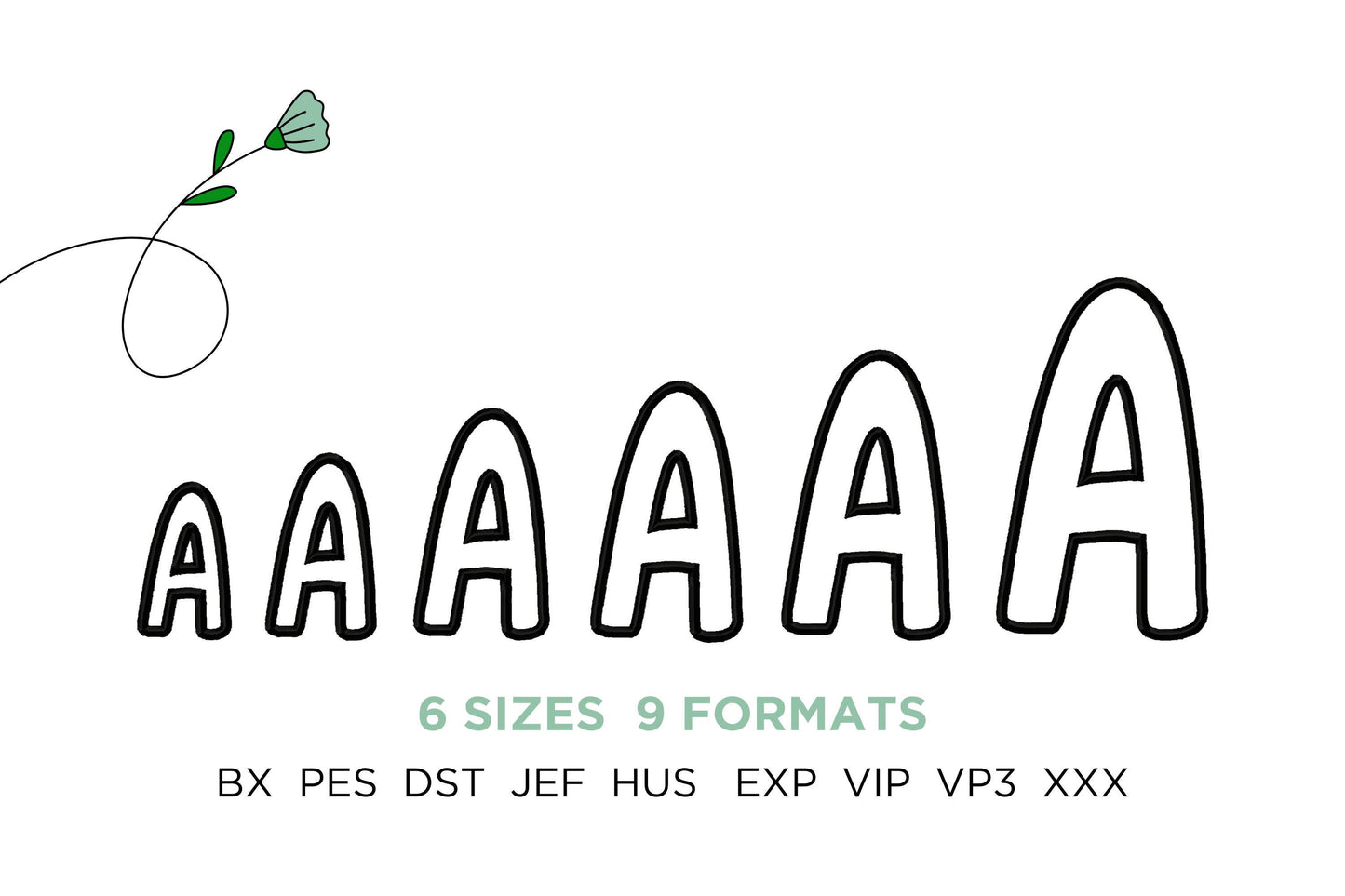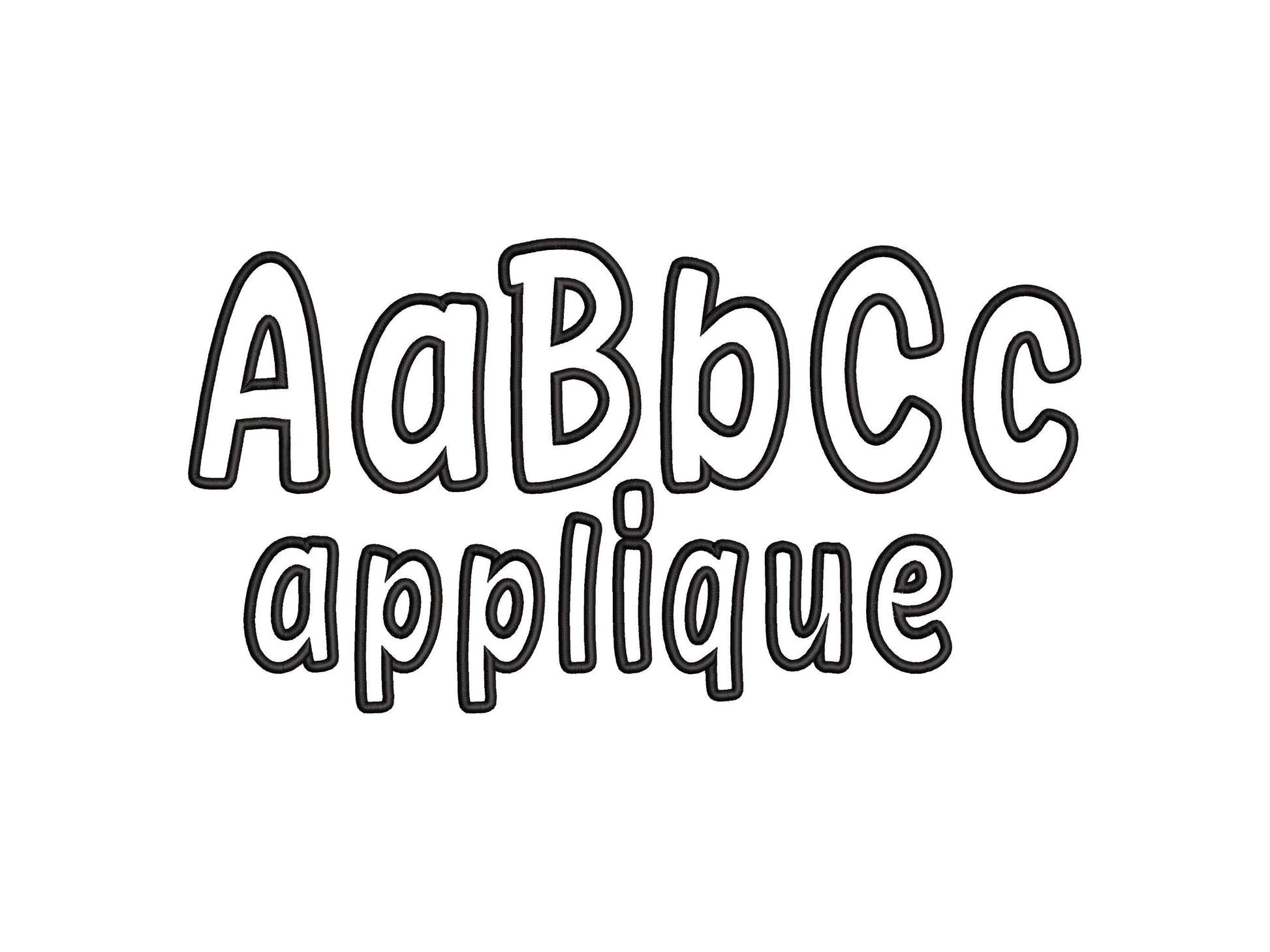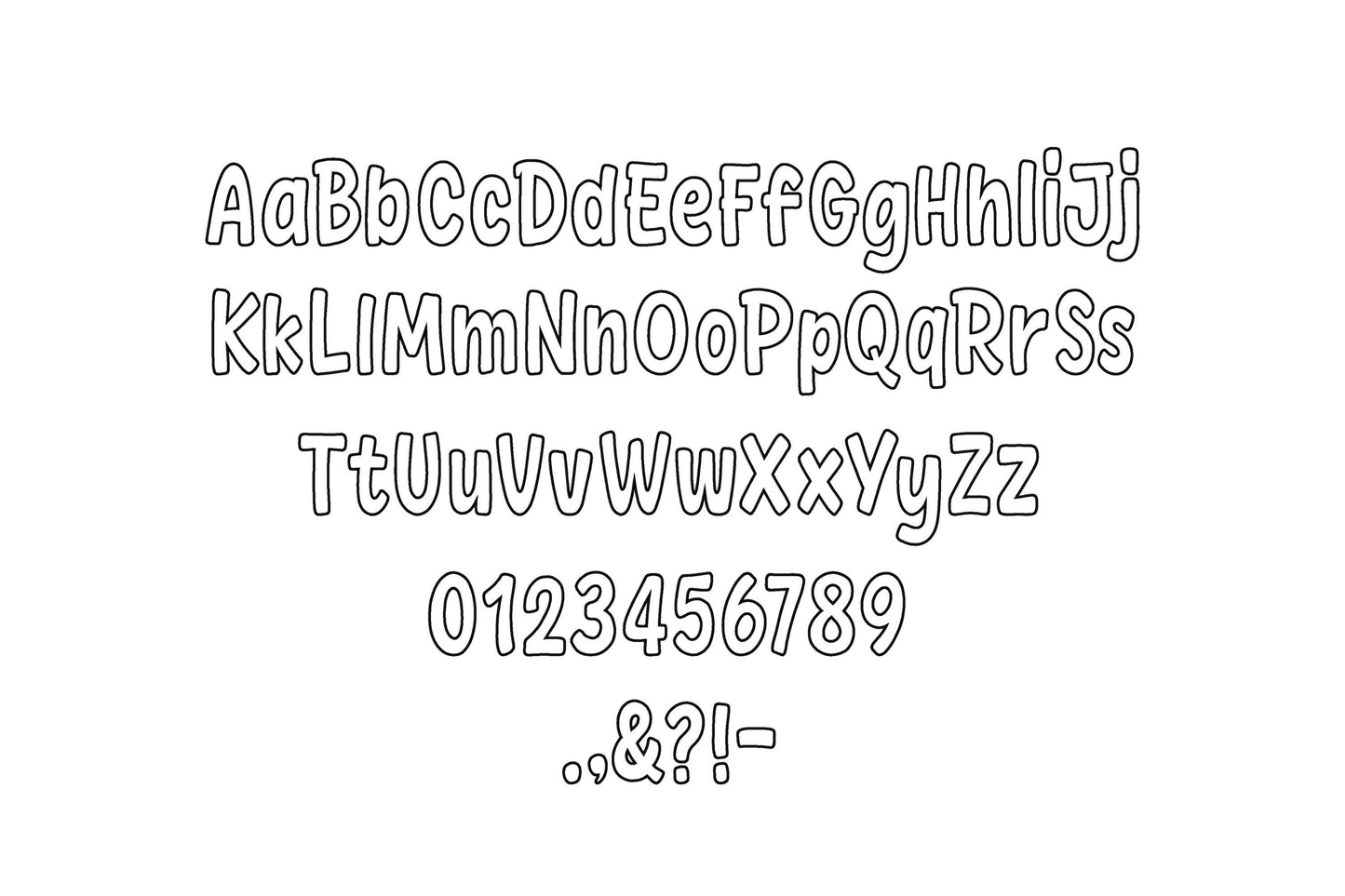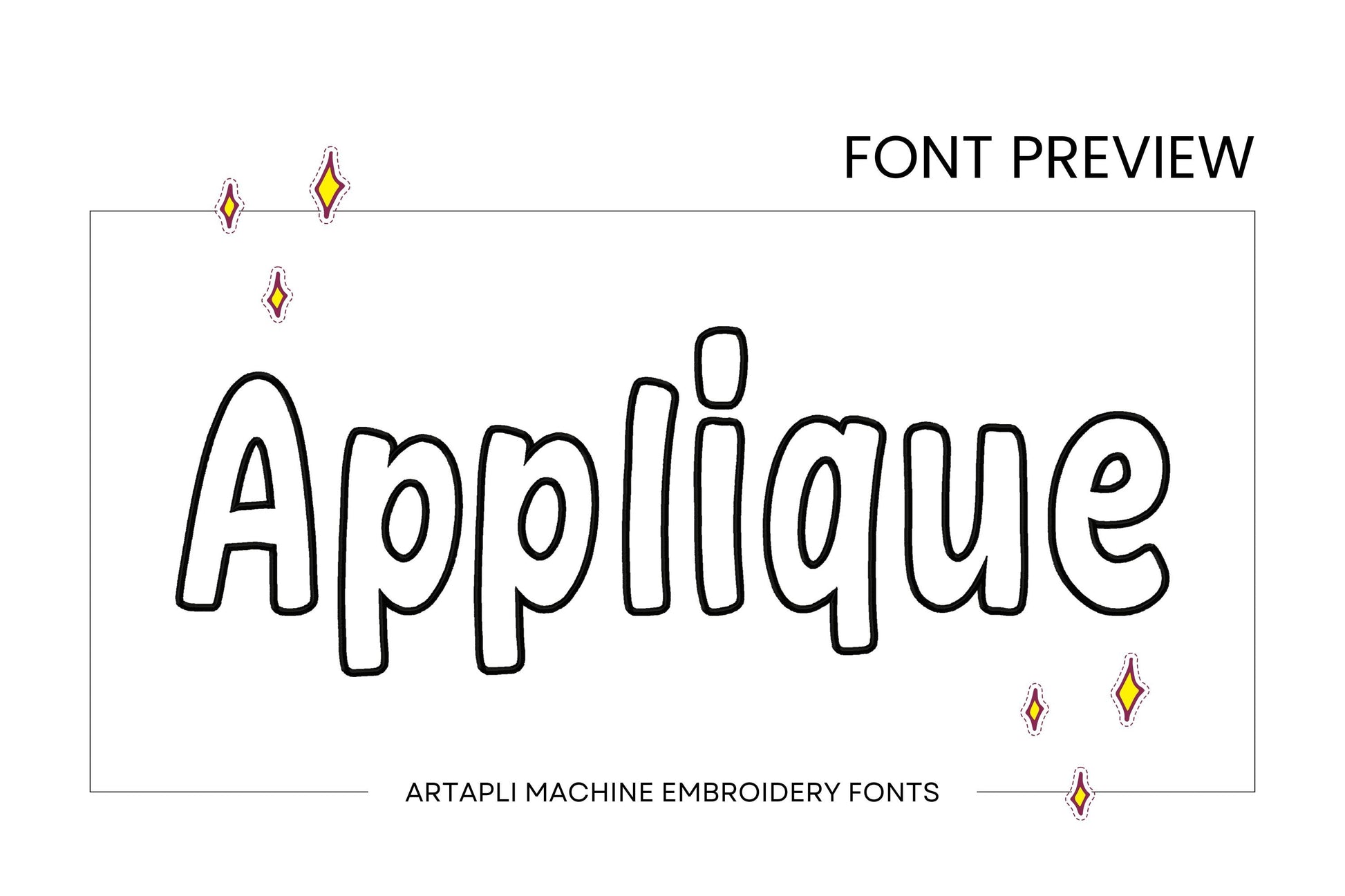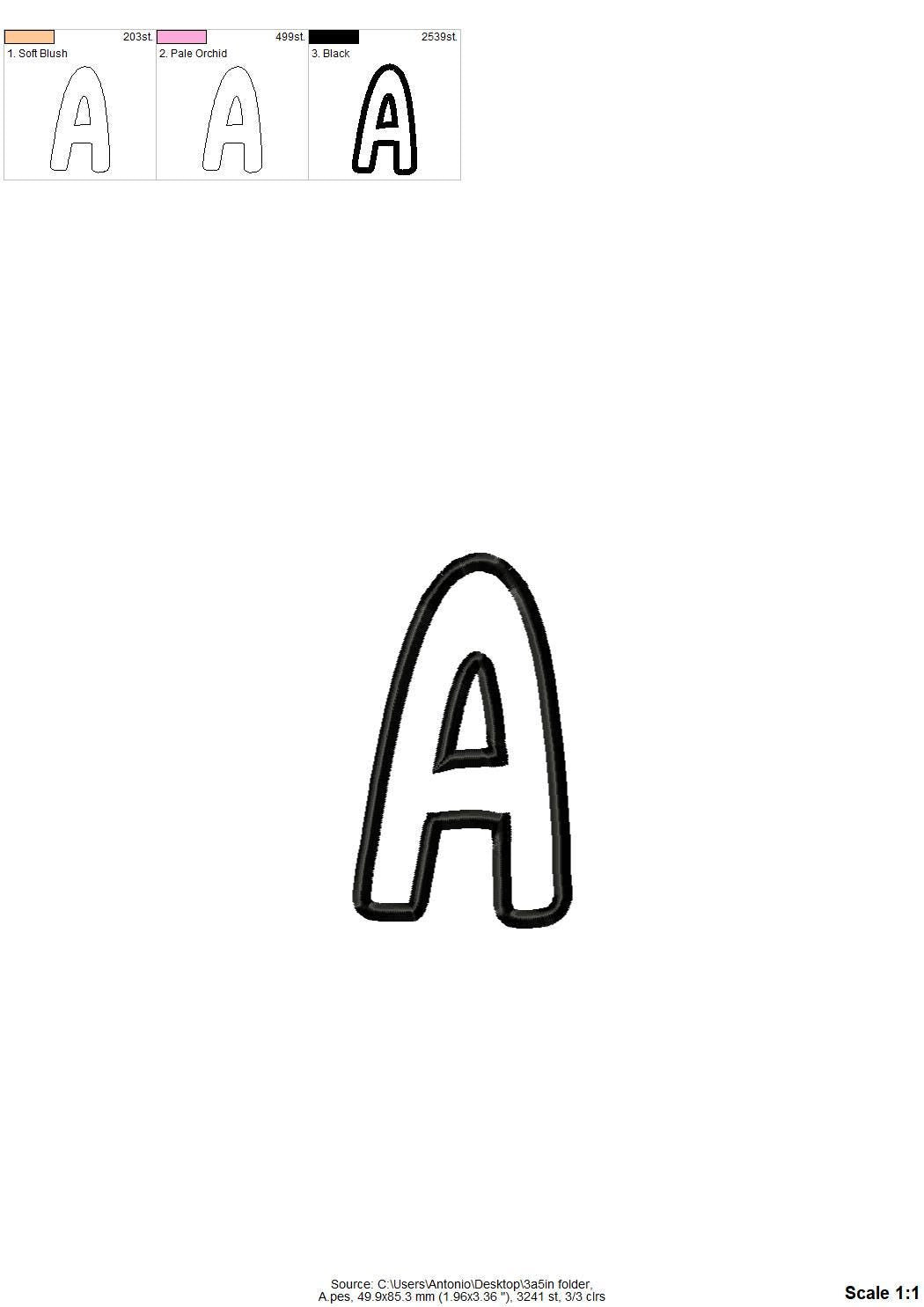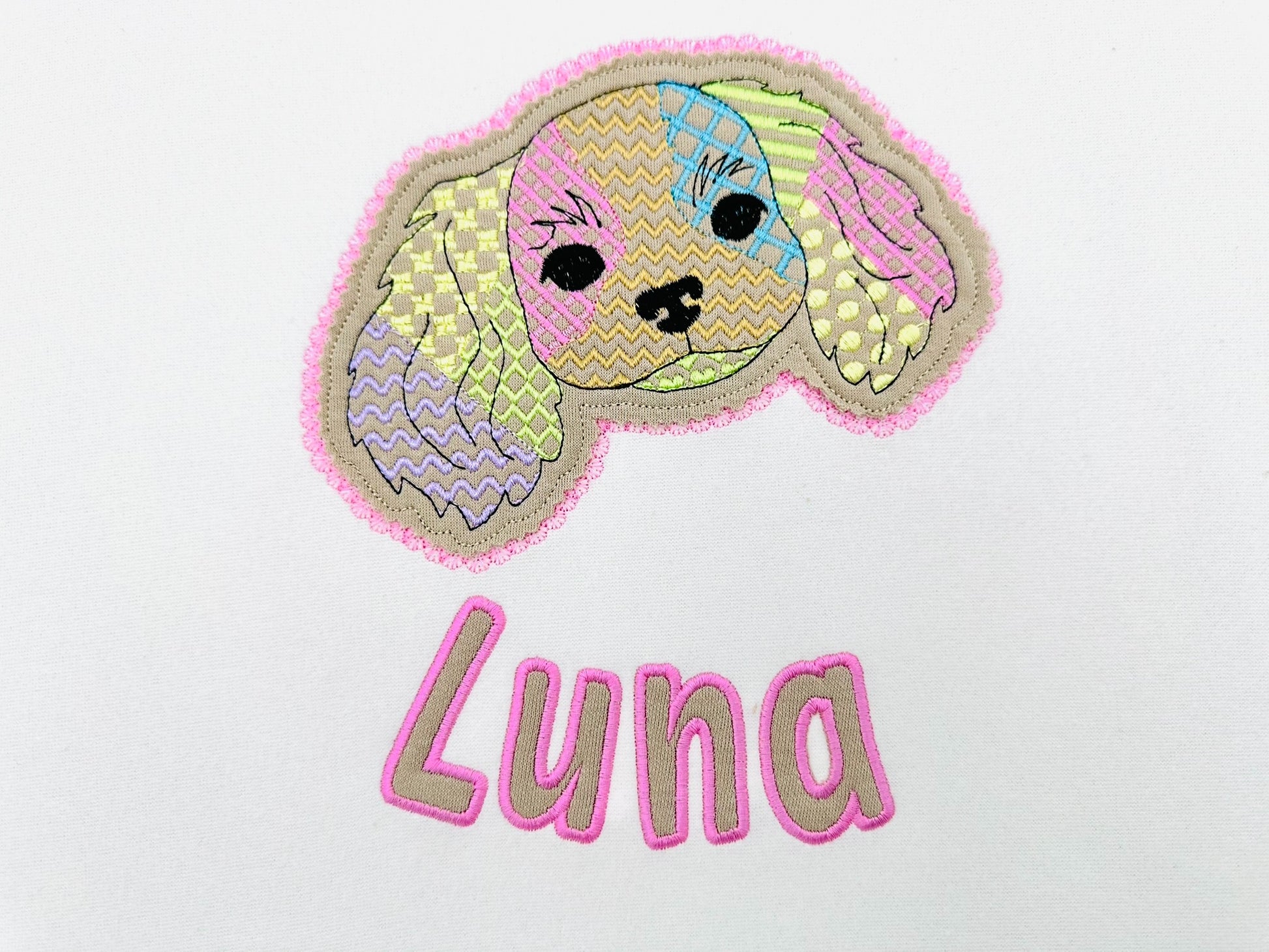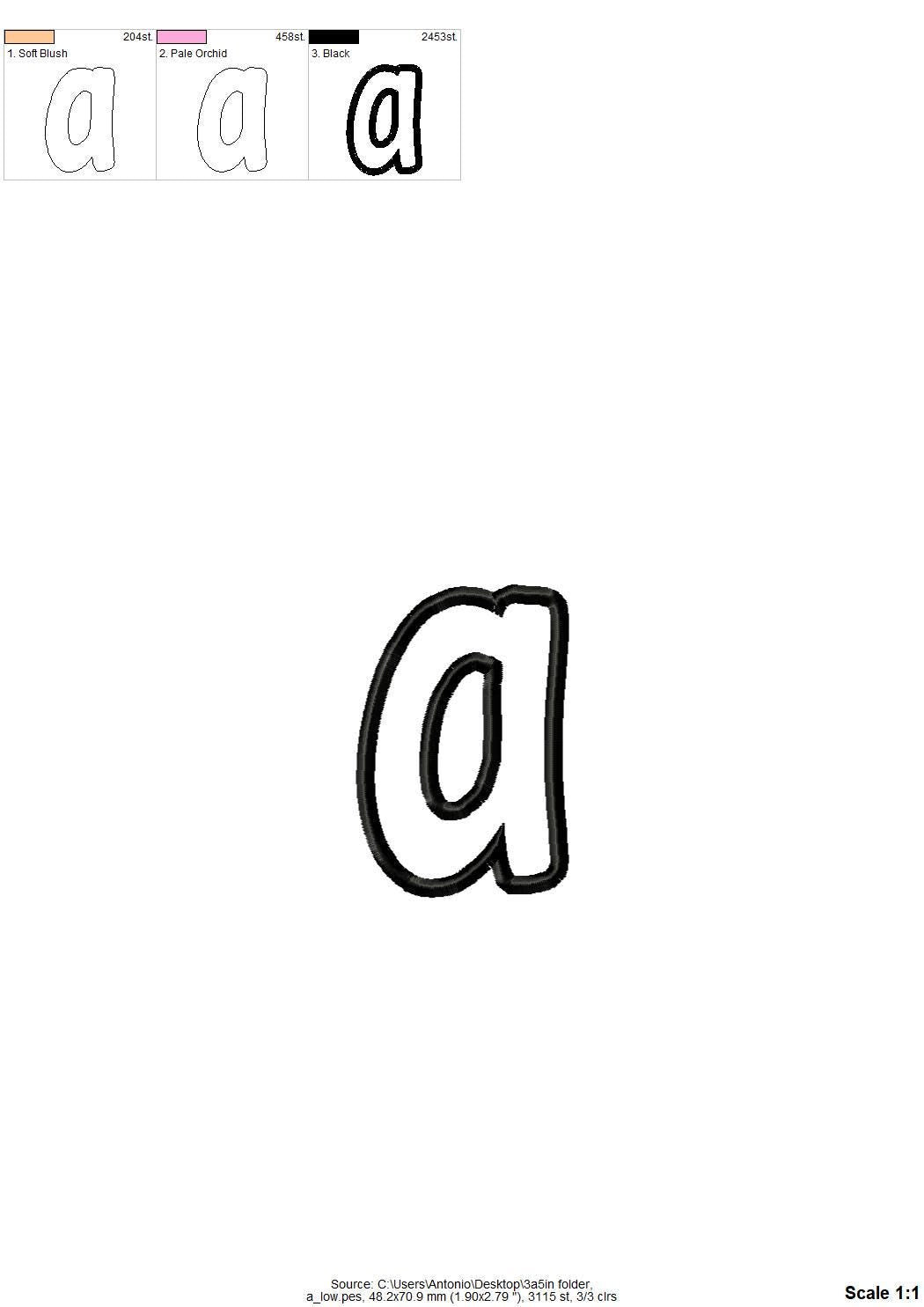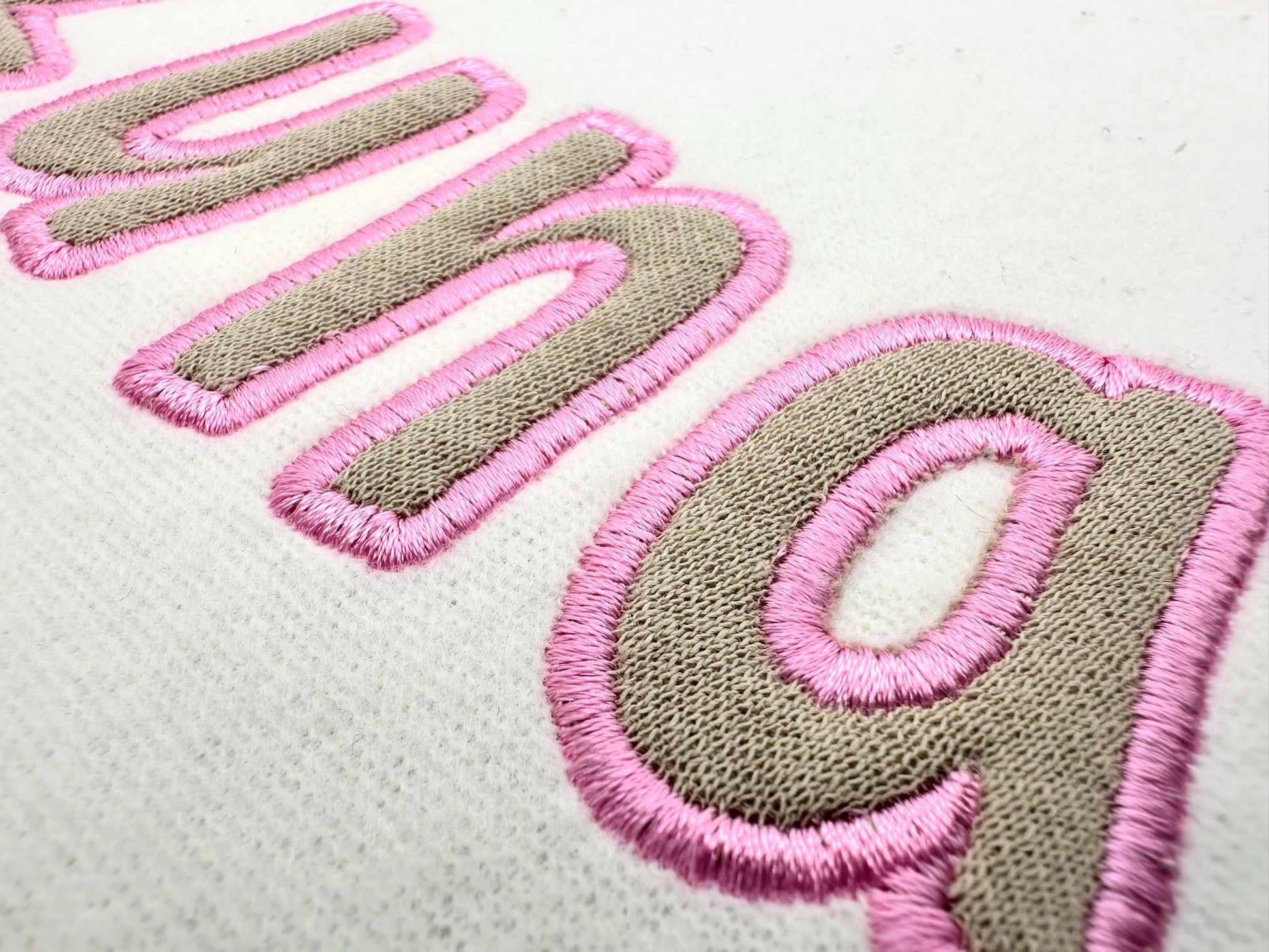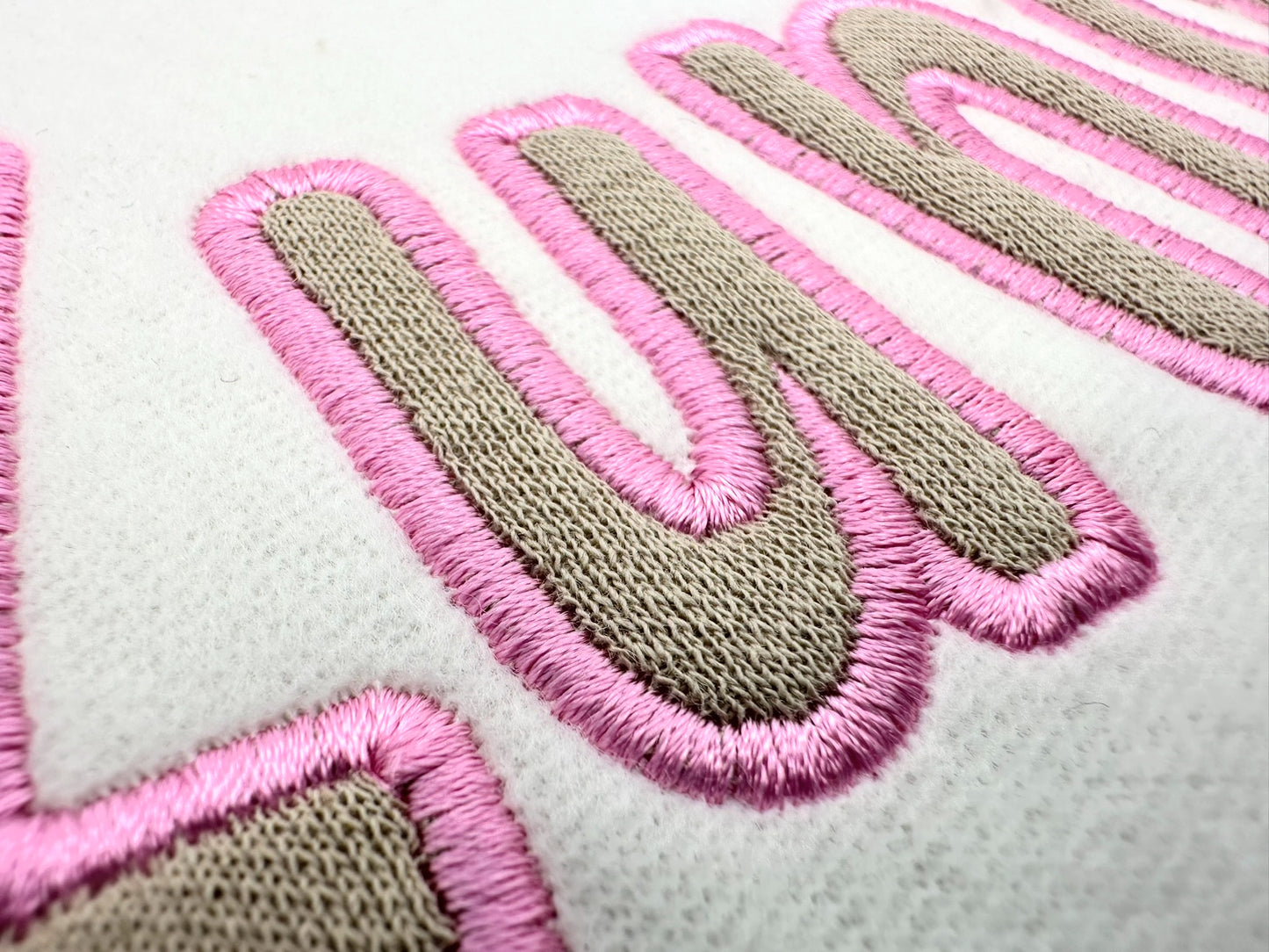
Kids Monogram Font Applique
Or click to open the linkA rounded, quick and simple applique font for kids' and baby names on shirts, blankets and pillows.
Uppercase and lowercase letters, numbers and punctuation in six sizes: 2.4, 2.8, 3.5, 4, 4.5 and 5.5 inches.
- Rounded kids applique font
- Uppercase, lowercase, numbers 0-9, punctuation
- 6 sizes, 2.4 to 5.5 in